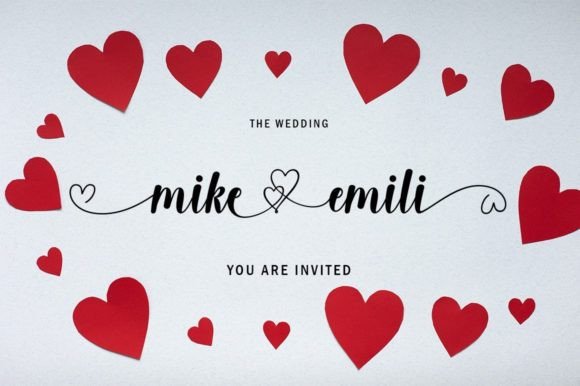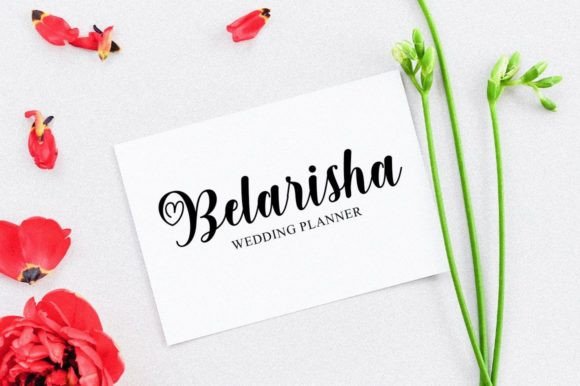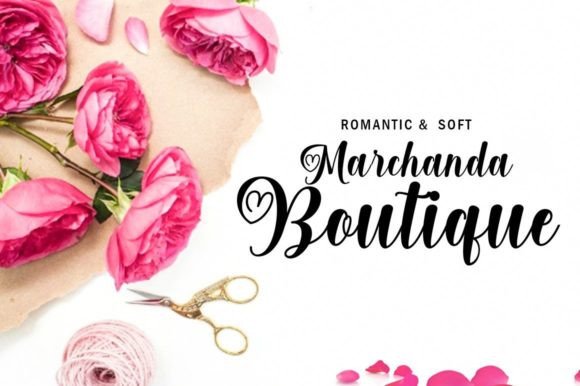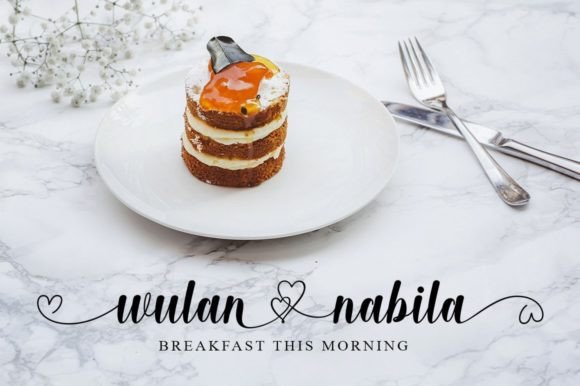
Lialisa Font
About Lialisa Font
Lialisa stands out as a smooth, elegant, and flowing handwritten font that brings a beautifully balanced character to a variety of designs. With its varied baselines, smooth lines, beautiful glyphs, and stunning alternatives, Lialisa offers a versatile tool for creating visually appealing typographic designs. The hand-drawn design elements of this font allow you to effortlessly craft beautiful creations, making it a perfect choice for branding, web and editorial designs, prints, crafts, and quotes.
The graceful and flowing nature of Lialisa makes it suitable for a range of applications, from logotypes to wedding invitations, romantic cards, labels, packaging, name spelling, and more. Its ability to adapt to different design contexts makes Lialisa a valuable asset for various creative projects.
One notable feature of Lialisa is its PUA encoding, providing easy access to all the glyphs and swashes. This user-friendly attribute ensures that you can seamlessly integrate unique characters into your designs, offering a level of flexibility and creative freedom.
In summary, Lialisa goes beyond being just a font; it’s a design element that brings smooth elegance to your most creative ideas. Whether applied to digital or print media, its versatile characteristics, coupled with PUA encoding, make Lialisa a valuable companion for designers aiming to infuse a touch of sophistication into their work, creating visually stunning and captivating designs.